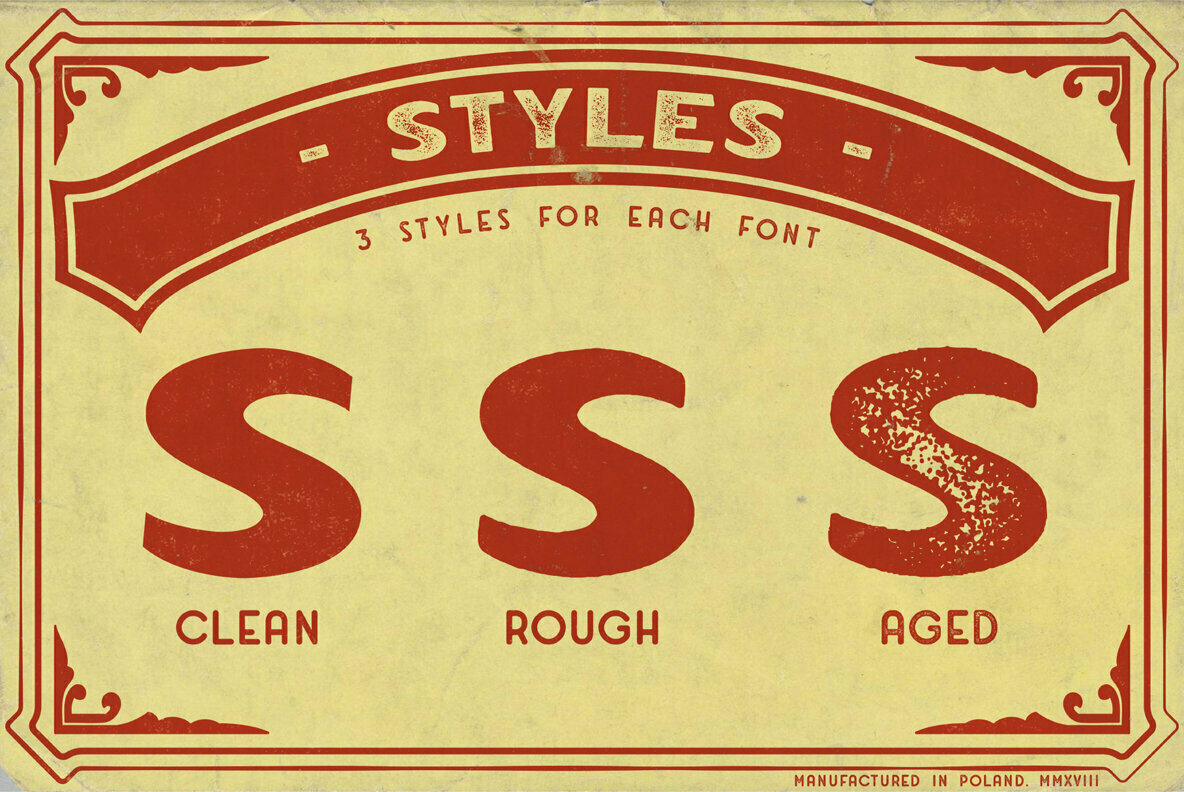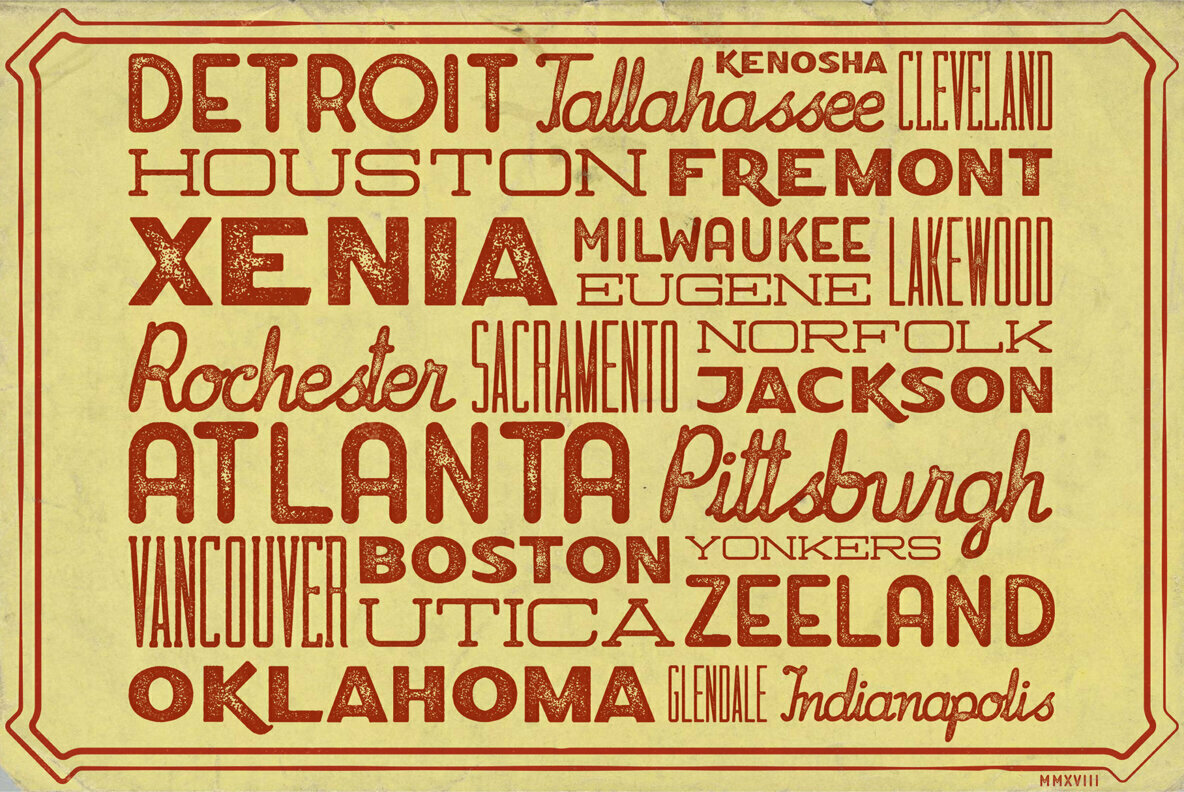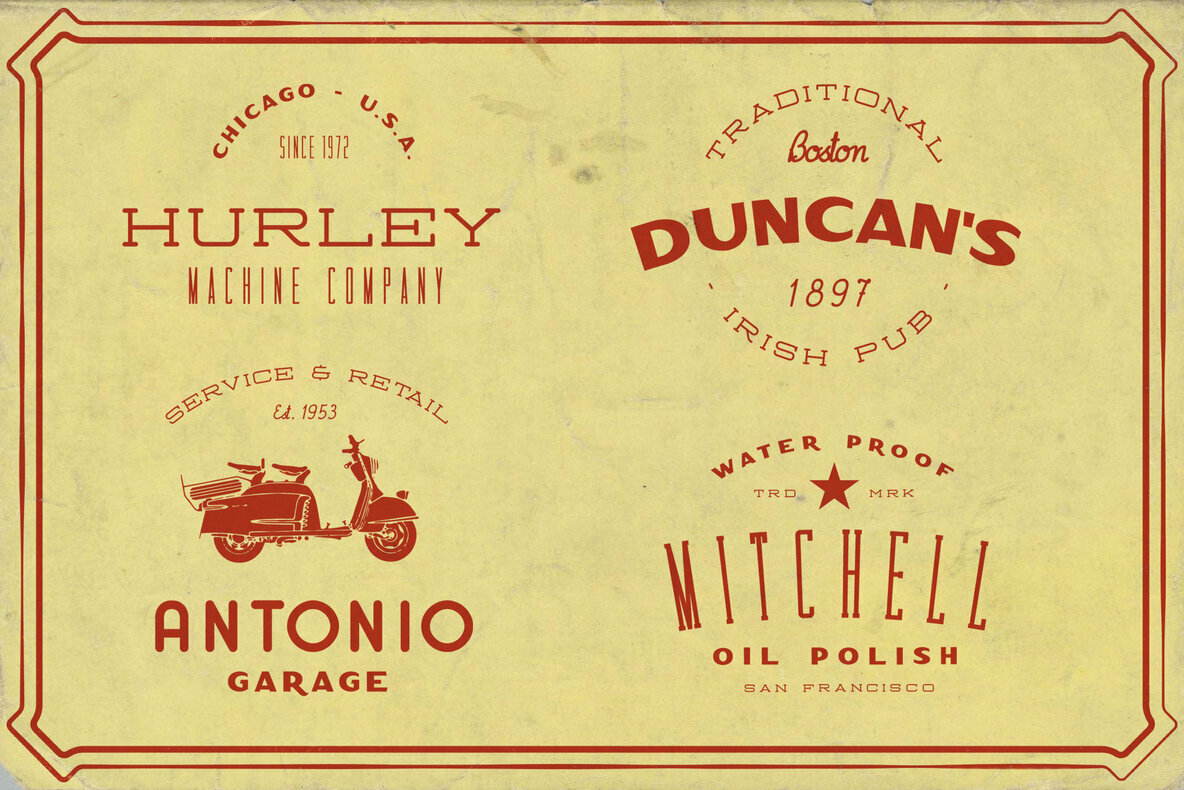
The Print Press Collection Font
The Print Press Collection is a display font set inspired by vintage typography used on printed posters, matchboxes, postcards, advertisements etc. 5 different typeface families will allow you many options for combining fonts in logo, label, poster, t-shirt and branding design. Random styles of the fonts can be used in modern and vintage design styles. Enjoy!
What does "The Print Press Collection" contain?
• Blutzen - A rounded sans typeface
• Fratley - All caps bold sans font
• Garnet - A retro, hand style script font
• Harold - All caps, extended serif typeface
• Stilzkin Sans - All caps condensed sans font
• Stilzkin Slab - All caps condensed slab serif font
Each font has 3 styles: Clean, Rough and Aged.